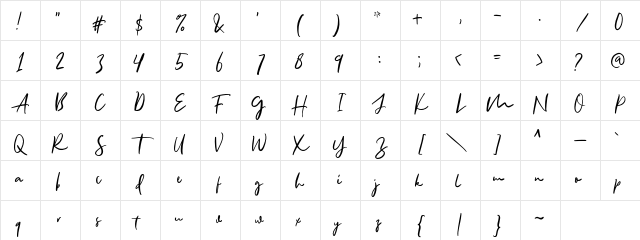
AllisonStyle Script DEMO Regular Free Font
AllisonStyle Script DEMO Regular
Foundry: Sarid Ezra
Designer: Sarid Ezra
Design Context for AllisonStyle Script DEMO
AllisonStyle Script DEMO flows with the natural rhythm of handwritten lettering, making it ideal for designs that call for warmth and personal expression.
Font Pairing: Combine AllisonStyle Script DEMO with a simple geometric sans for maximum contrast - the tension between flowing curves and clean structure is a classic typographic pairing.
Pro Tip: Use AllisonStyle Script DEMO for short runs of text - names, titles, or taglines. Extended body copy in script faces tires the eye quickly.